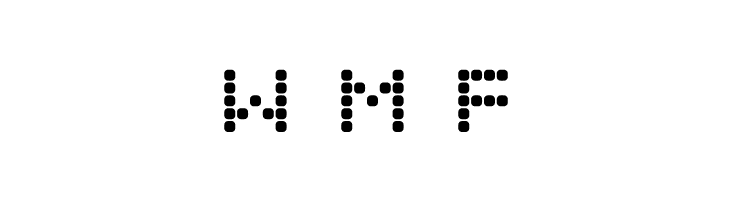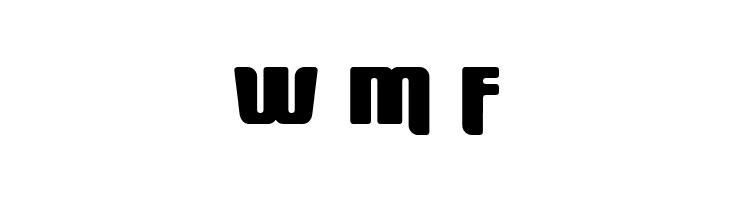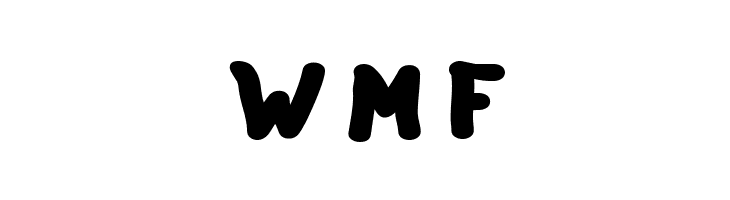
A dot matrix style font with a digital, geometric design.
A pixelated, grid-based font with a retro digital style.
A pixelated, monospaced font with a digital, modern aesthetic.
A geometric, pixelated font with a digital, retro aesthetic.
A dot matrix font with a retro digital display style.
A playful, bold font with bubble-like, three-dimensional letters.
A bold, futuristic font with a blocky, industrial design.
A playful, bold font with slightly condensed letterforms and a cohesive design.
A bold, geometric font with a futuristic and playful design.
A bold, jagged font with an irregular, hand-cut appearance.
A bold, geometric sans-serif font with a modern and structured design.
A modern, geometric font with clean lines and uniform character width.
A playful, hand-drawn font with bold, rounded strokes and a whimsical charm.
A bold, playful font with thick, rounded strokes and a bubbly appearance.
A playful, bold font with thick, rounded characters and a hand-drawn feel.
A modern, geometric font with rounded edges and a slight slant.
A bold, geometric font with a modern, futuristic style and uniform stroke widths.
A bold, geometric font with thick, block-like characters ideal for modern designs.
A bold, decorative font with a shadow effect and intricate flourishes.
A whimsical and decorative font with intricate swirls and flourishes.
A textured, distressed font with a crumbly, dynamic appearance.
A bold, spiky font with a crumbly texture and swollen appearance.
A bold, spiky font with jagged edges and a rugged, artistic style.
A futuristic, geometric font with bold, blocky letterforms.
A bold, blocky font with thick, uniform strokes and squared edges.